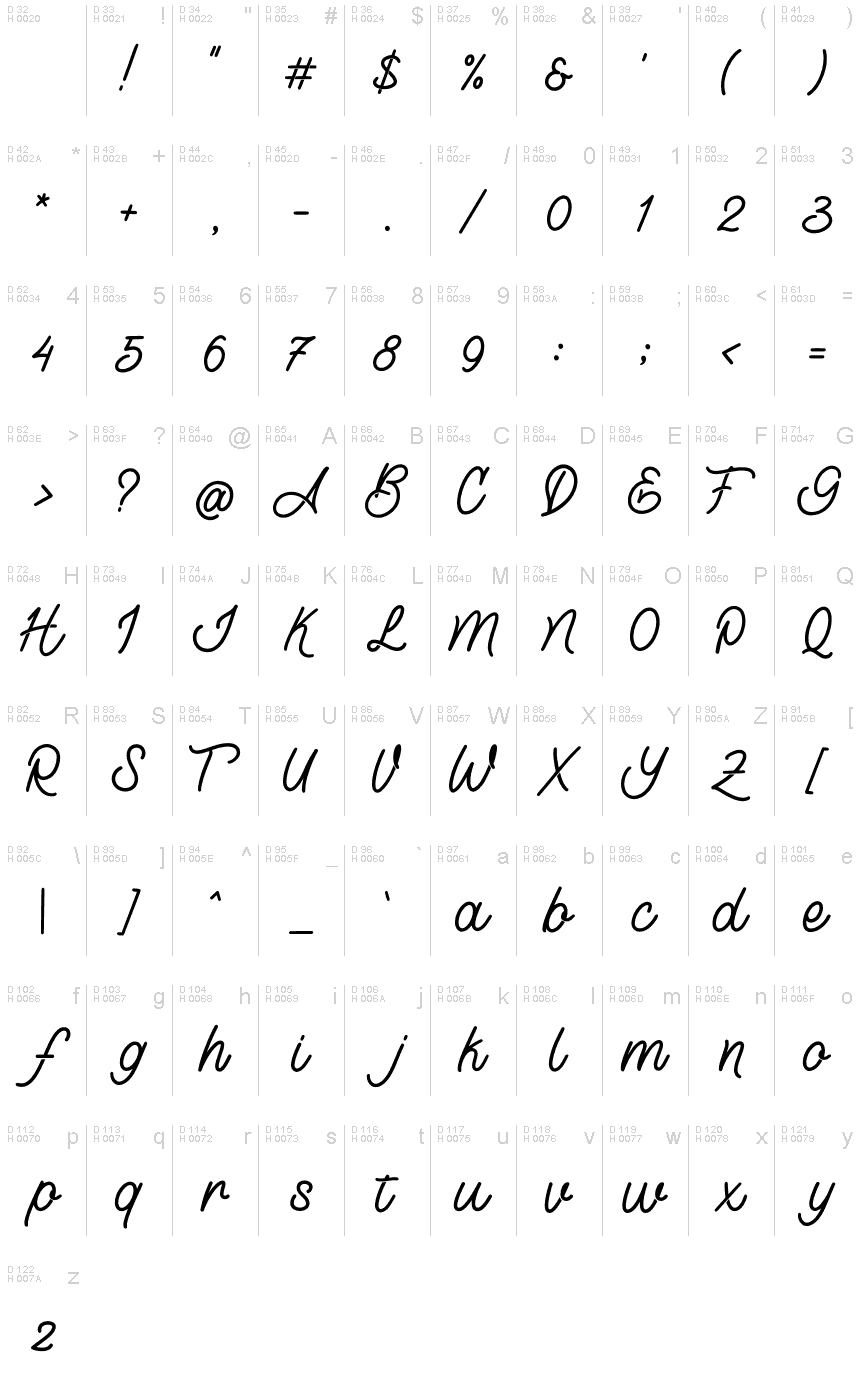
Lostown Demo
Lostown is a stunning brush font designed by Rochart Studio that offers a unique and modern feel to any project. Its semi-light weight adds an airy and delicate touch, making it perfect for designs that require a subtle yet impactful text element. The brush style of Lostown gives off a playful and handcrafted vibe, making it suitable for various creative projects such as branding, packaging, social media graphics, and more. Create eye-catching designs with ease using Lostown's charming strokes and versatile character set. Give your next project the creative edge it deserves with this captivating semi-light brush typeface.